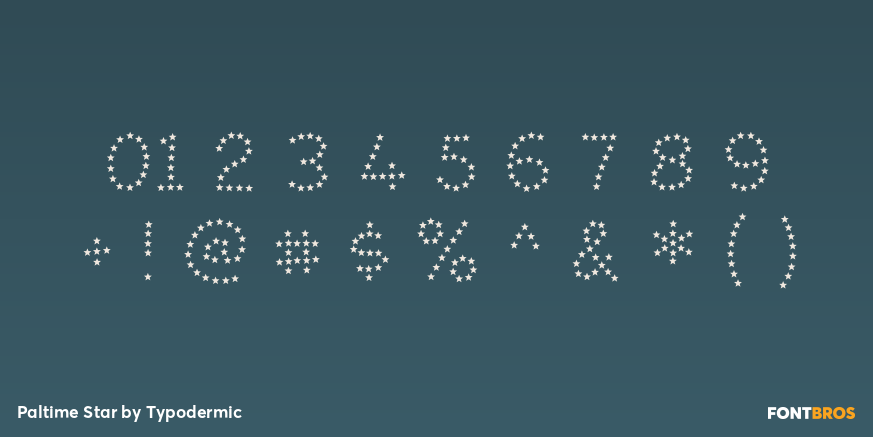
Paltime Star
Buy NowPaltime Star builds each all-caps character from separate five-pointed stars placed along the family’s underlying strokes. With no enclosing letter body, the repeated emblems create an airy celebratory layer that remains recognizably Paltime. Star aligns with the star-shaped openings in Paltime Glam and can also sit over Solid, allowing the symbols to carry their own color or animation.
Use Paltime Star for awards graphics, headline performers, opening-night promotions, talent competitions, holiday spectaculars, festival titles, and star-themed attractions. It is strongest in a few large words, where the individual points remain crisp and the eye can connect the modules into letters. Combine it with Glam for a firm decorated face, place it over Solid for a filled two-color treatment, or use it alone when a lighter constellation-like title suits the artwork.